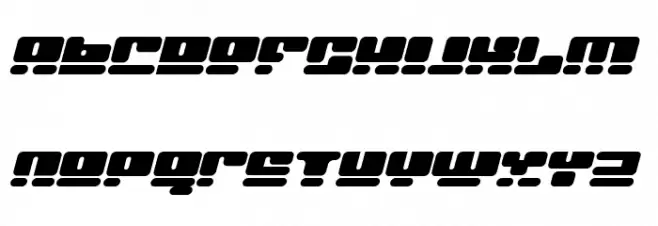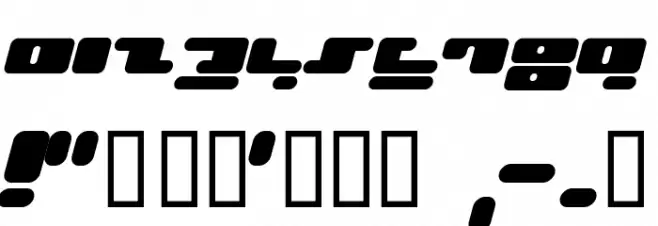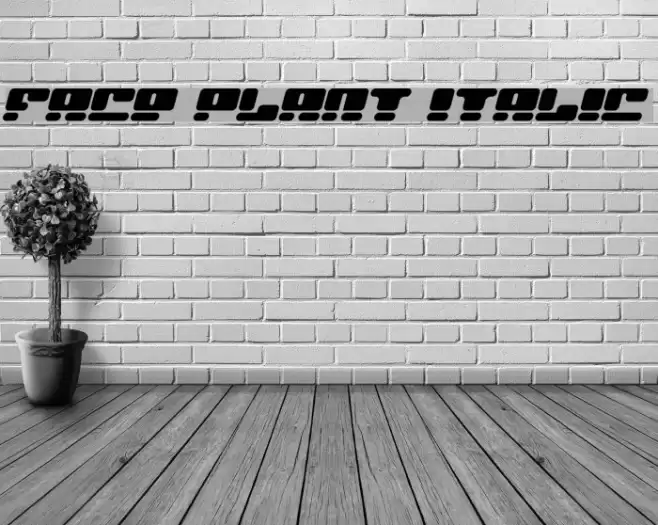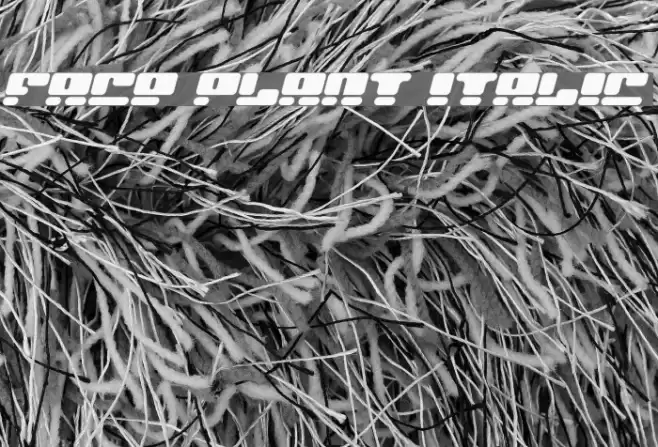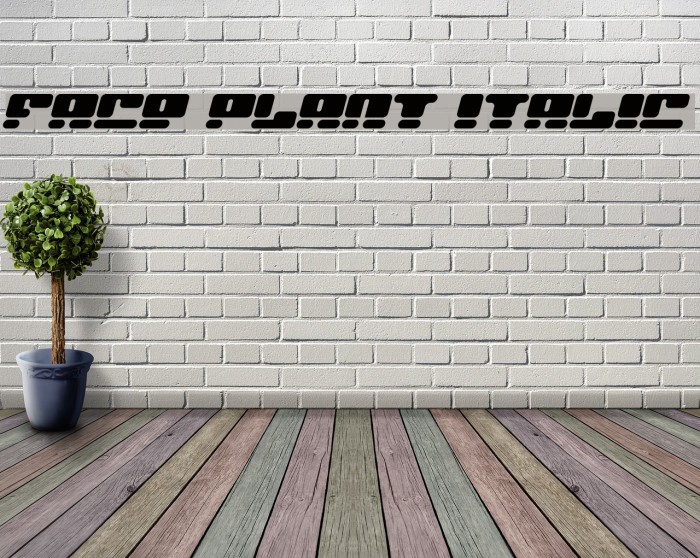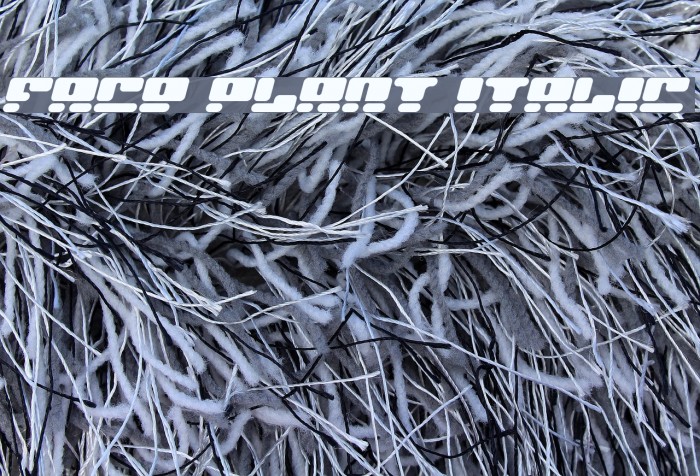
Face plant Italic Font
Face plant Italic Description
This font features a bold and futuristic design with a distinct italic slant. Each character is composed of thick, rounded strokes with a unique segmented appearance, creating a sense of movement and modernity. The uppercase and lowercase letters maintain a consistent style, with the lowercase being slightly more compact. Numbers and special characters follow the same design principles, ensuring uniformity across all glyphs. The font's boldness and geometric shapes make it stand out, while the italic angle adds a dynamic touch. It's a perfect choice for projects that require a contemporary and eye-catching typeface.
A bold, futuristic italic font with segmented, rounded strokes.
- Proposed Projects: Ideal for sci-fi themed designs, tech branding, modern posters, and digital media.